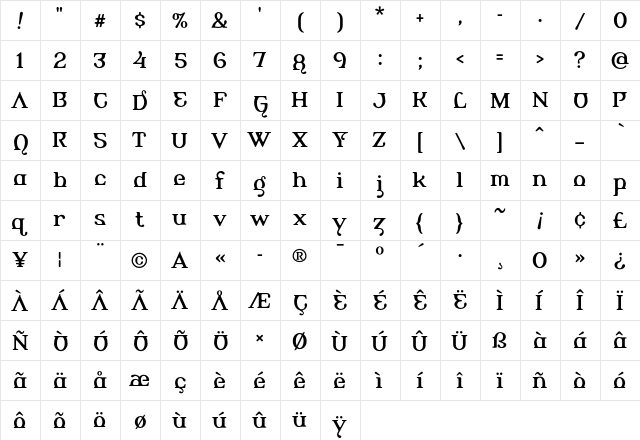
AlembicBeta-RegularTwo Regular
Design Context for AlembicBeta-RegularTwo Typeface
AlembicBeta-RegularTwo is a composed and adaptable typeface that performs quietly and consistently across a wide range of design contexts.